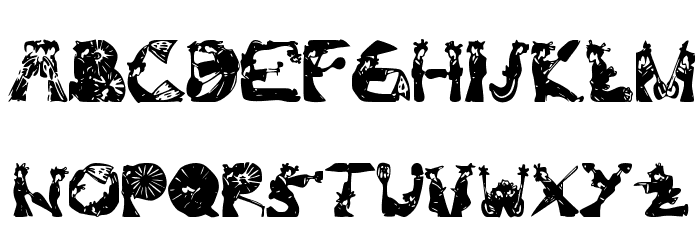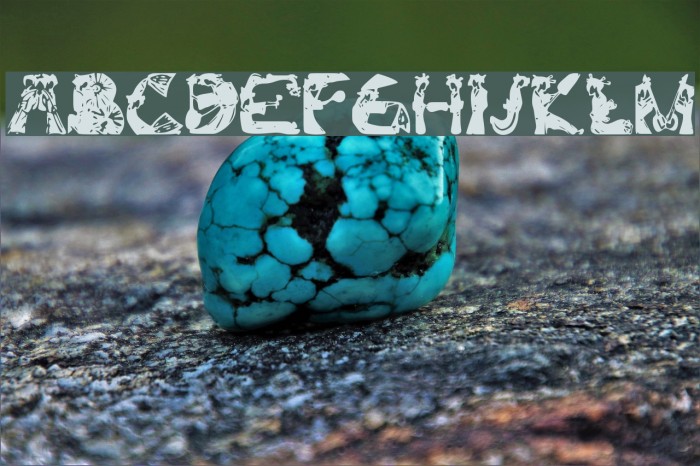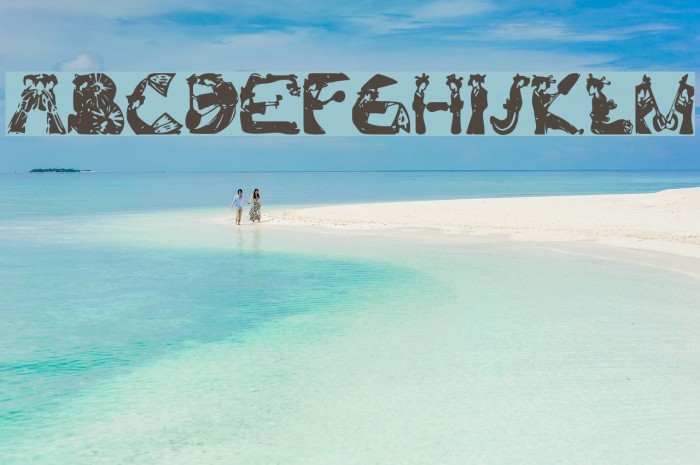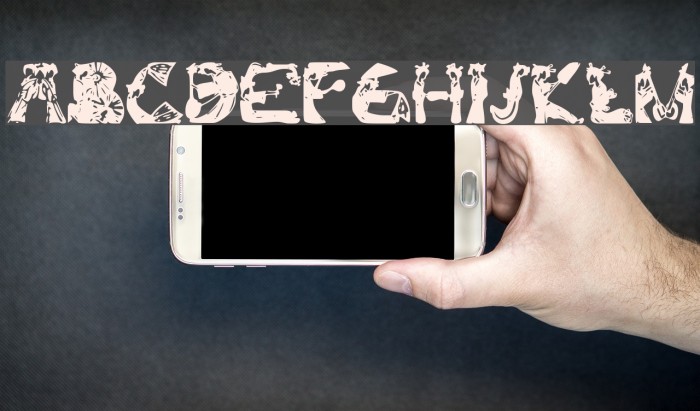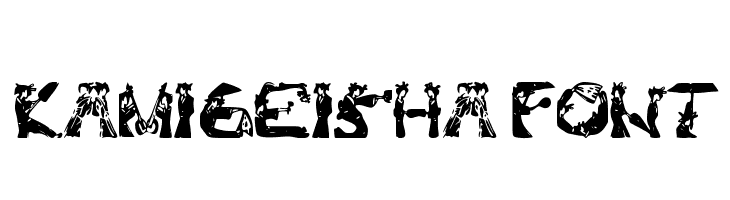
Kami-Geisha Font Font
This font is a highly decorative and artistic typeface that incorporates intricate patterns and designs within each character. The letters are filled with detailed illustrations, giving them a unique and ornate appearance. The style is bold and eye-catching, making it suitable for projects that require a strong visual impact. Each character is a work of art, with elements that suggest cultural or thematic motifs, adding a layer of storytelling to the text. The font's complexity and artistic flair make it ideal for creative and expressive design projects.
A decorative and artistic font with intricate patterns and bold style.
- Proposed Projects: Ideal for posters, album covers, artistic projects, and cultural event promotions.
- Use Case: Headlines, Logos, Artistic projects